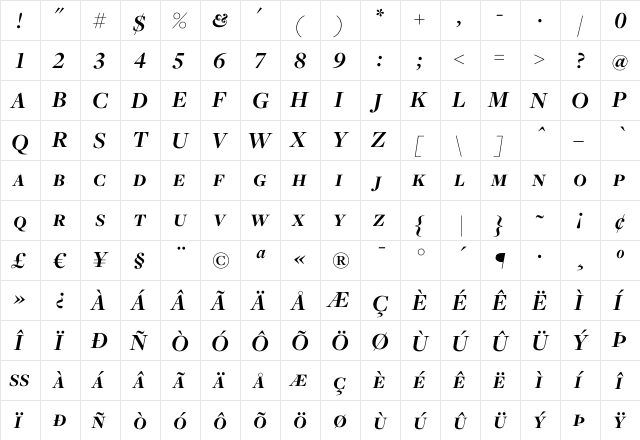
Freight Disp Bold Italic SC Font Preview
Freight Disp Bold Italic SC
Freight Disp Bold Italic SC Font Details
| Style | Disp Bold Italic SC |
| Foundry | Joshua Darden & Phil's Fonts, Inc |
| Designer | Joshua Darden |
Design Context for Freight Typeface
Freight is a composed and adaptable typeface that performs quietly and consistently across a wide range of design contexts. Its italic angle brings a sense of urgency and motion to the letterforms. The heavy weight commands attention and anchors typographic hierarchies.
Pro Tip: Use Freight for emphasis, pull quotes, and subheadings where its slanted energy can add rhythm to the layout.